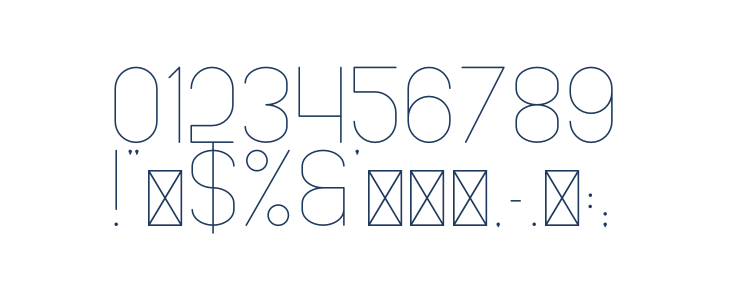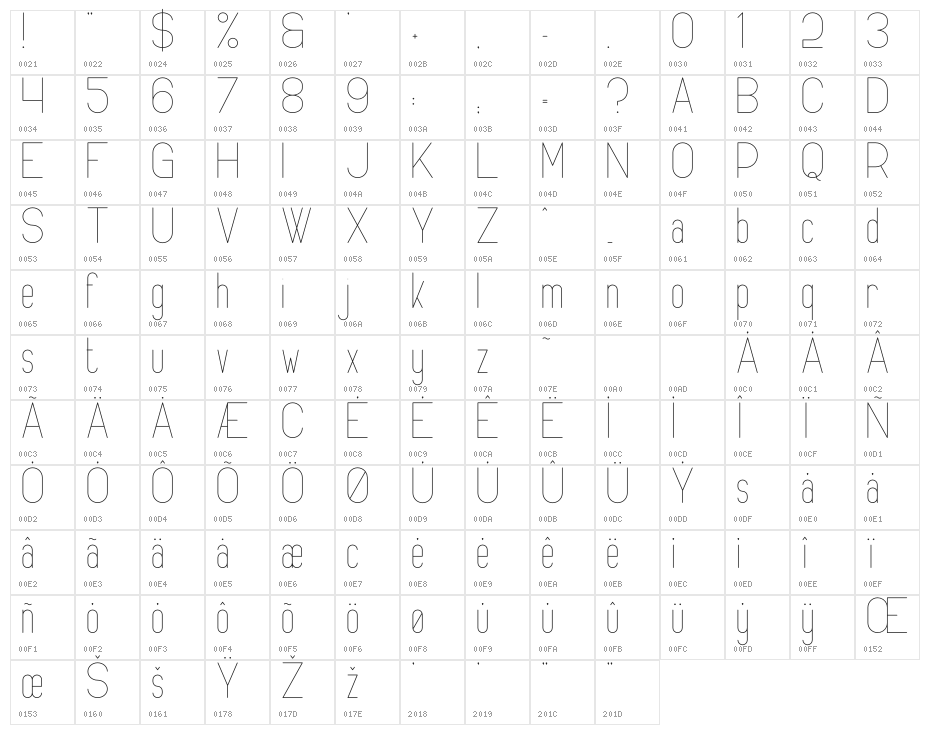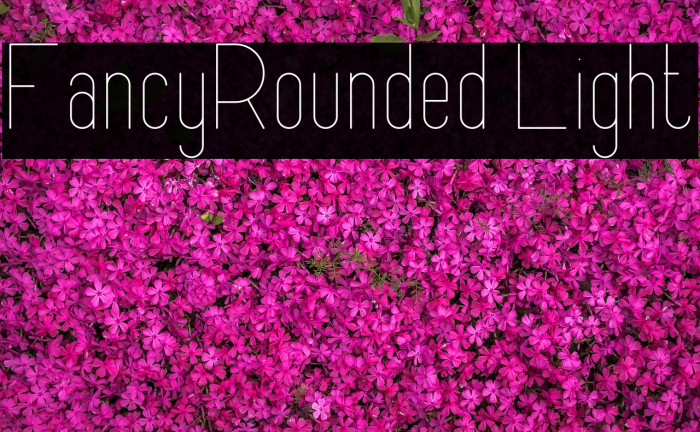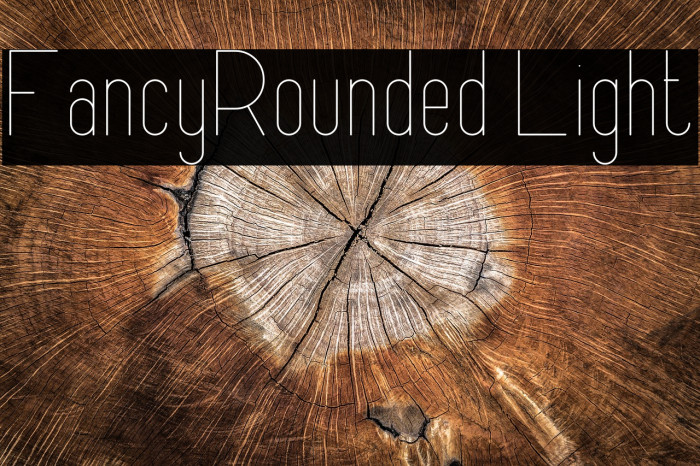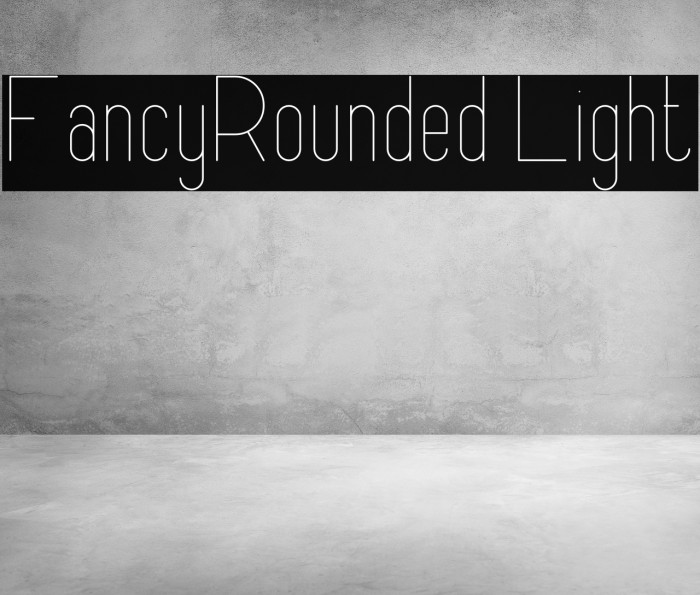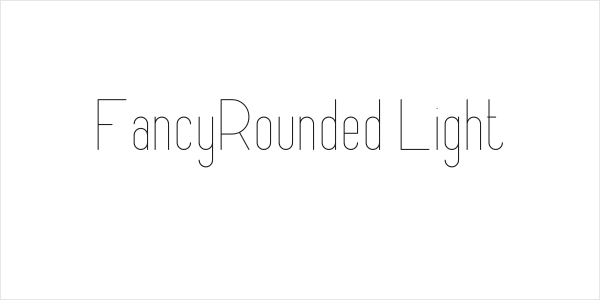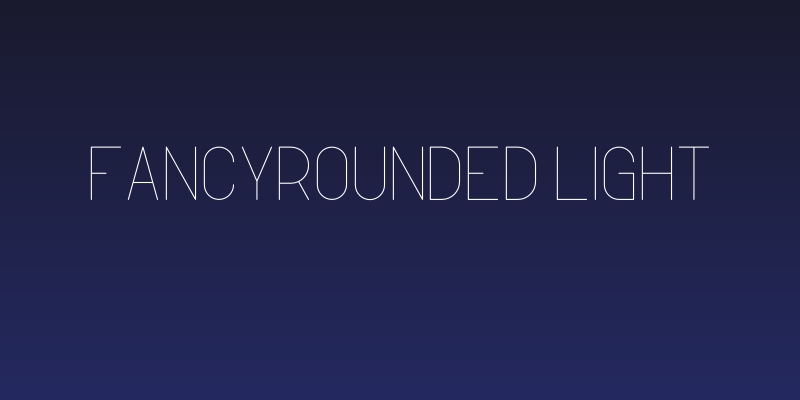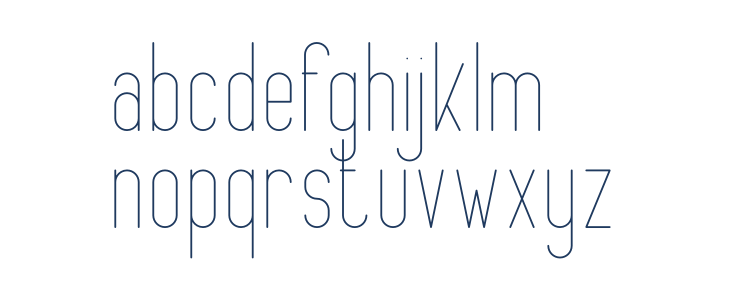
FancyRounded Light Font
FancyRounded Light Description
This font features a sleek and modern design with a light weight, characterized by its rounded edges and geometric structure. The uppercase letters are tall and narrow, while the lowercase letters maintain a consistent height, providing a harmonious balance. The numerals are distinct and clear, matching the overall aesthetic of the alphabet. Special characters are elegantly integrated, maintaining the font's minimalist style. The thin strokes and rounded corners give it a contemporary feel, making it suitable for a variety of design applications.
| Use Case | Headlines, Logos, Digital Interfaces |
| Proposed Projects | Ideal for modern branding, tech-related designs, minimalist posters, and digital interfaces. |